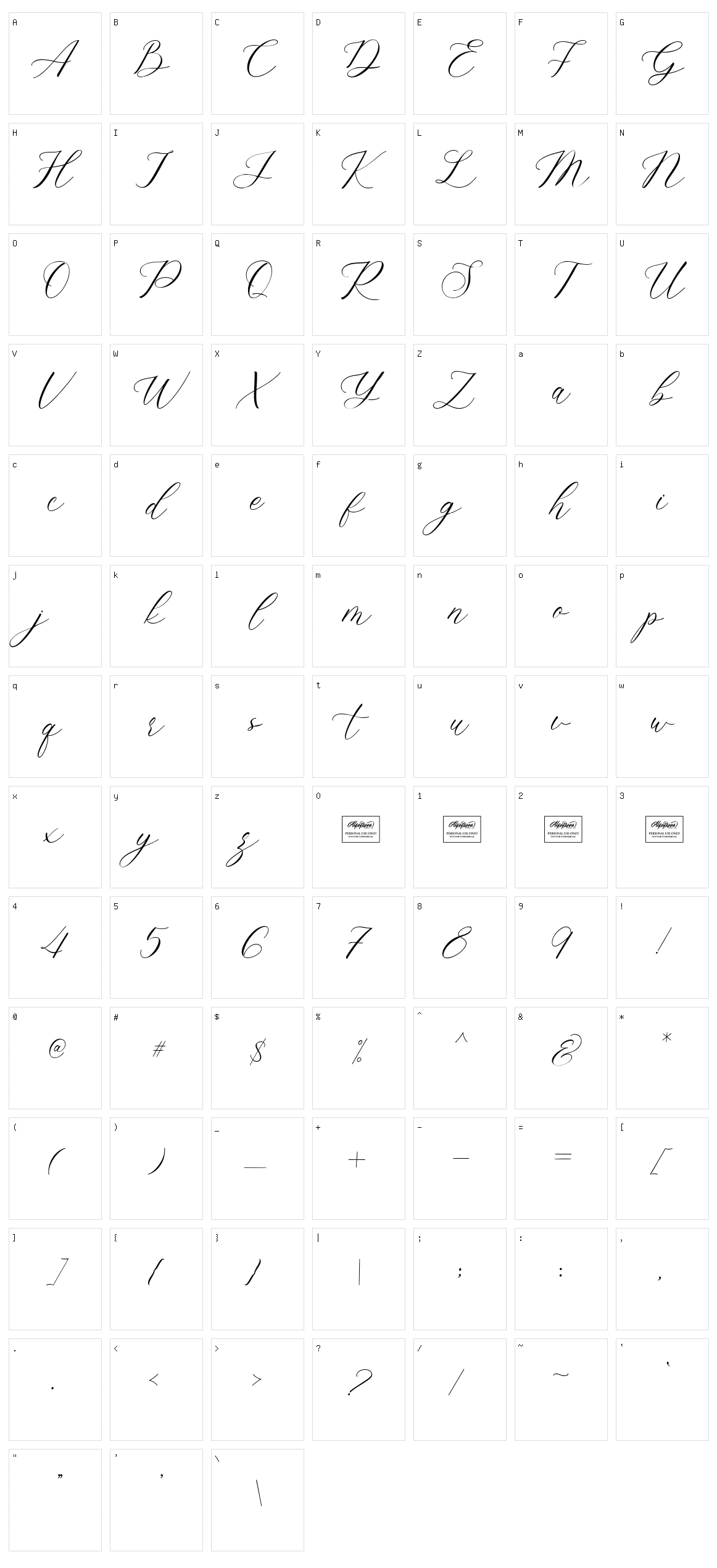
The free font Giordan is carefully designed by Alpaprana Studio, showcasing a thoughtful balance of creativity and usability and falls under the Script font style. When you download the ZIP file, it contains only 1536.45 KB of font files, making it lightweight and quick to download. Please review the license details below to understand permitted usage and distribution rights. If license information is not available, we recommend using this font for personal projects only or contacting the author directly for commercial usage permissions.